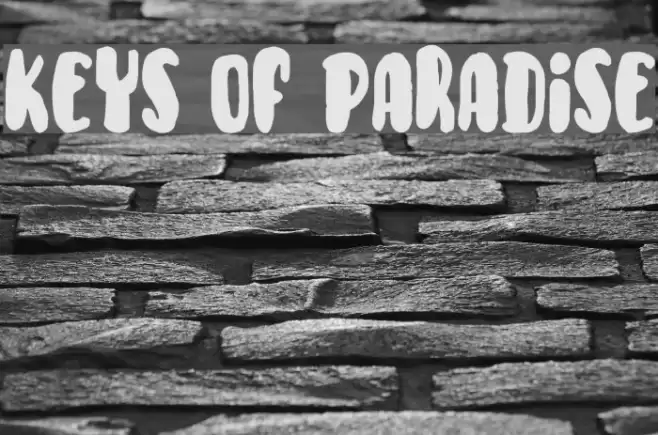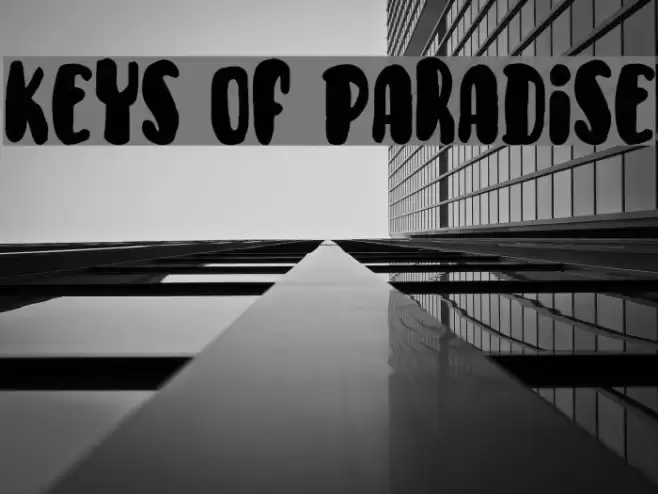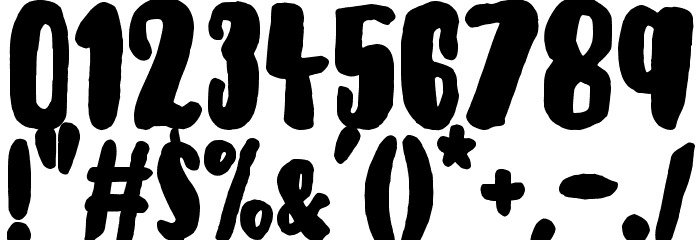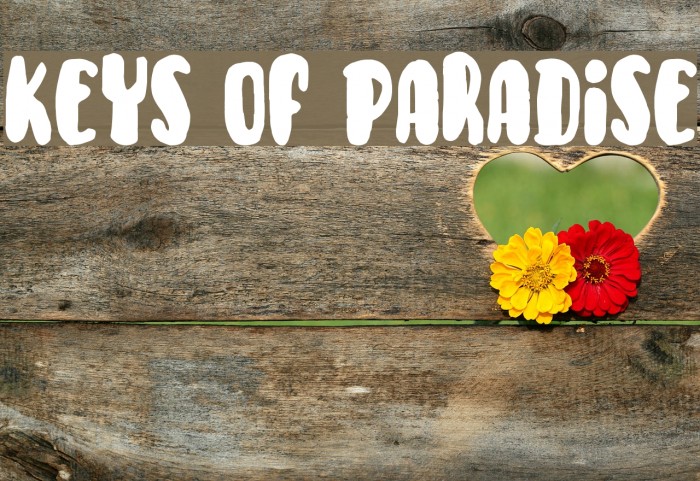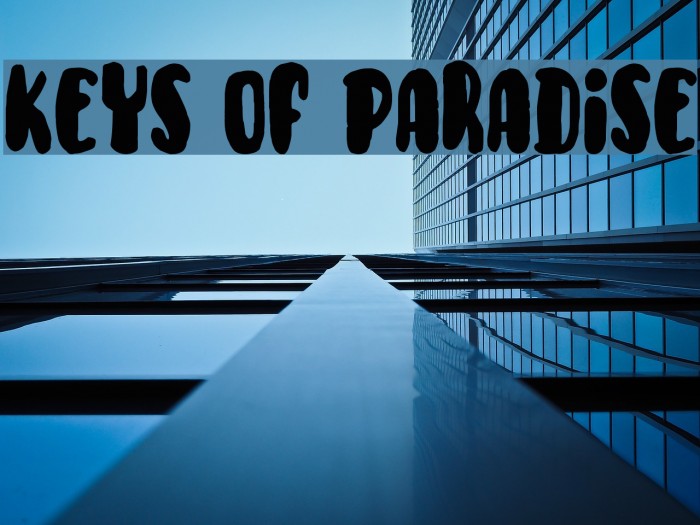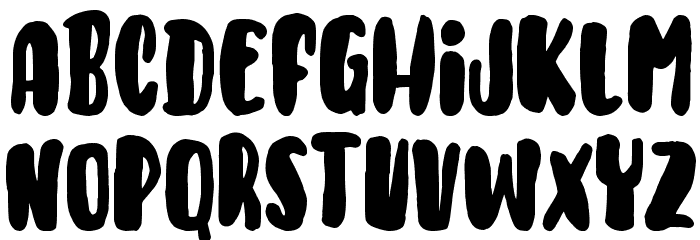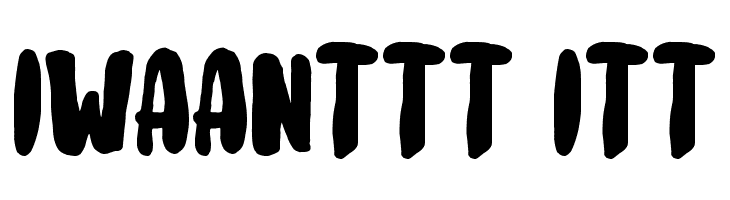
Keys of Paradise Font
Keys of Paradise Description
This font features a bold and playful style with thick, rounded strokes that give it a lively and energetic appearance. The characters are slightly irregular, adding a hand-drawn feel that enhances its charm. The uppercase and lowercase letters maintain a consistent weight, contributing to a cohesive look. The numbers and special characters follow the same design principles, ensuring uniformity across all elements. This font's unique personality makes it stand out, making it suitable for creative and informal projects.
A bold, playful font with thick, rounded strokes and a hand-drawn feel from Uncategorized fonts.
- Proposed Projects: Ideal for children's books, playful branding, posters, and creative social media graphics.
- Overall Style: Playful, Energetic, Hand-drawn